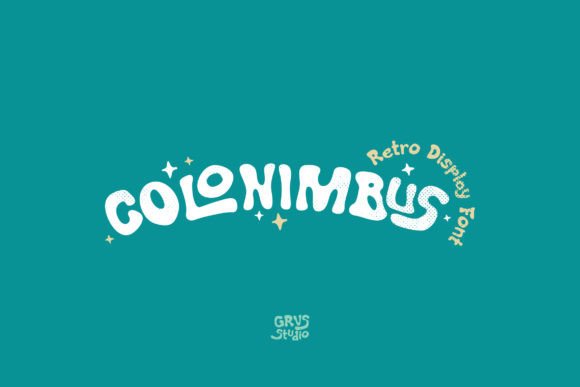
Dive into the world of retro charm with the Grvs Colonimbus Retro Display Font, a creation by the talented febryan.satria1. Embark on a journey through time as you explore the depths of this display font family, embodying the essence of vintage aesthetics.
With its meticulously crafted characters, Grvs Colonimbus transports you to an era of classic appeal. Its bold and eye-catching strokes evoke a sense of nostalgia, while its retro undertones add a touch of timeless elegance to your designs.
Unleash your creativity and let Grvs Colonimbus take center stage in your projects. Whether it's a striking logo that demands attention or an invitation card that oozes vintage charm, this font will elevate your designs to new heights.
Imagine the impact of your boat lettering transformed with the Grvs Colonimbus Retro Display Font. Its bold and distinct characters will make your boat stand out from the crowd, turning it into a head-turning masterpiece.
Step into the world of Grvs Colonimbus Retro Display Font and let your imagination run wild. Its versatility knows no bounds, from stickers and jerseys to brochures and beyond, this font will add a touch of retro magic to any project you undertake.